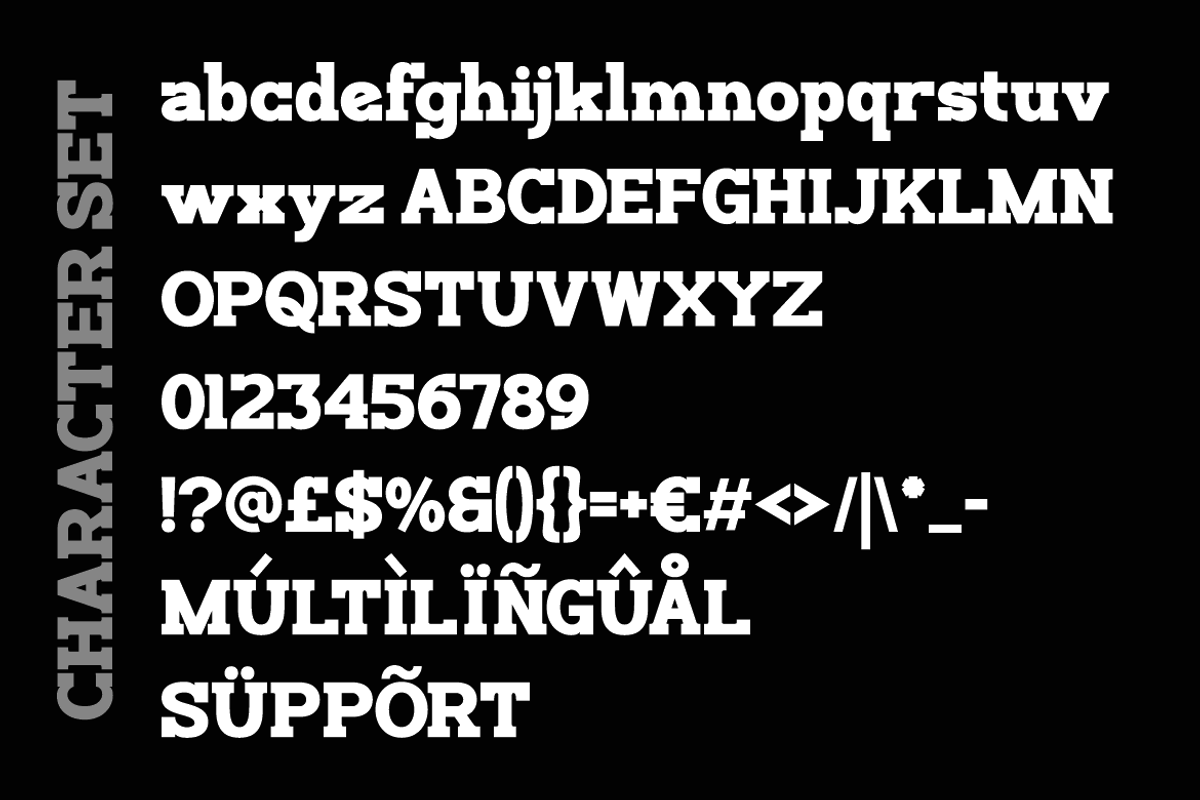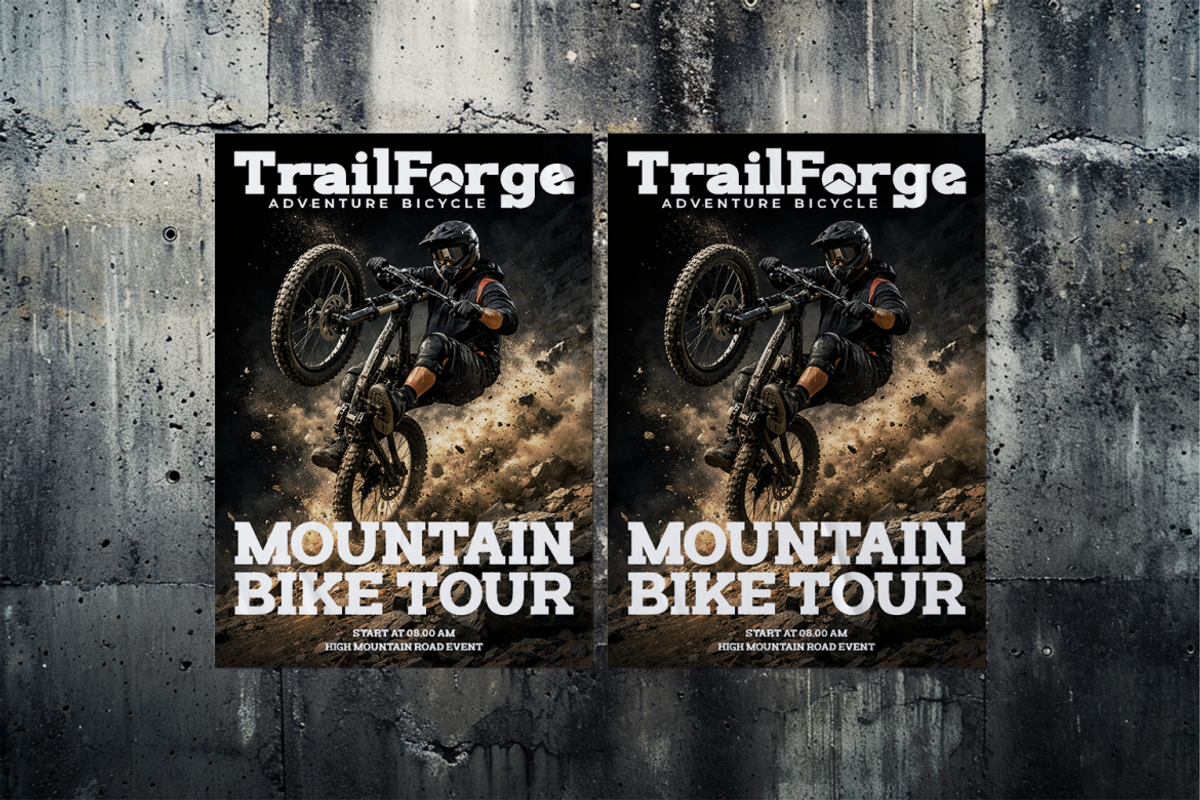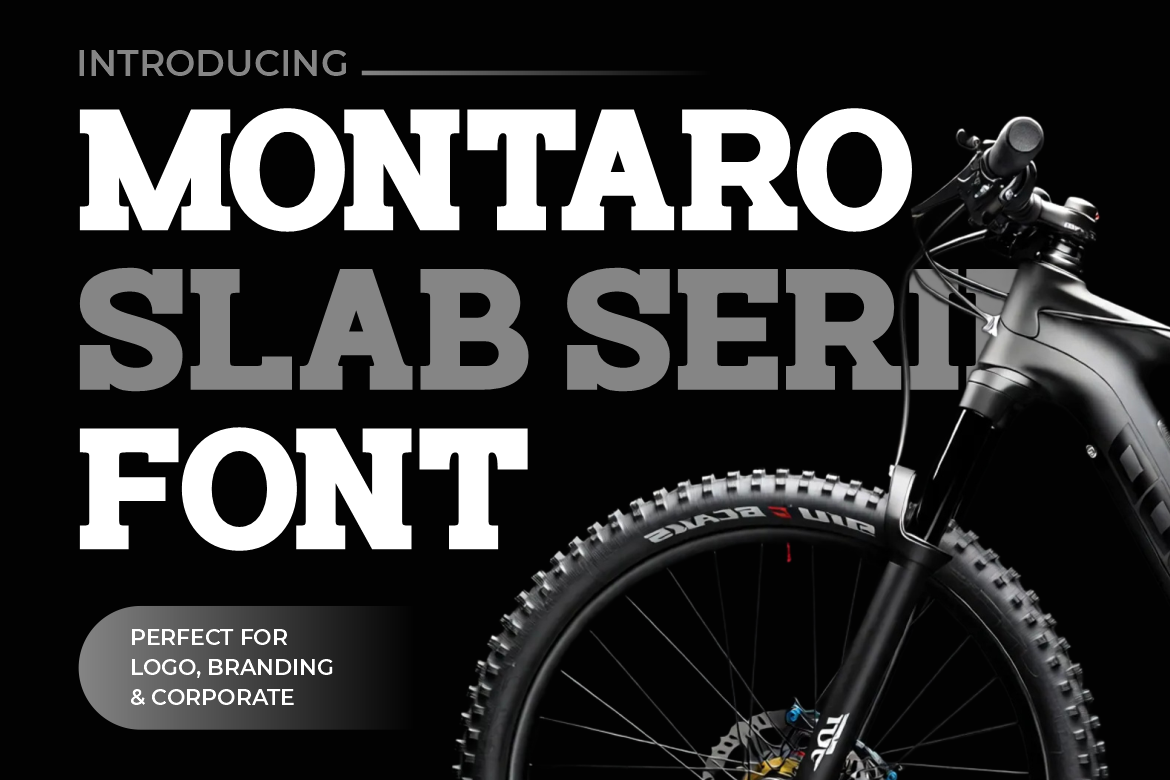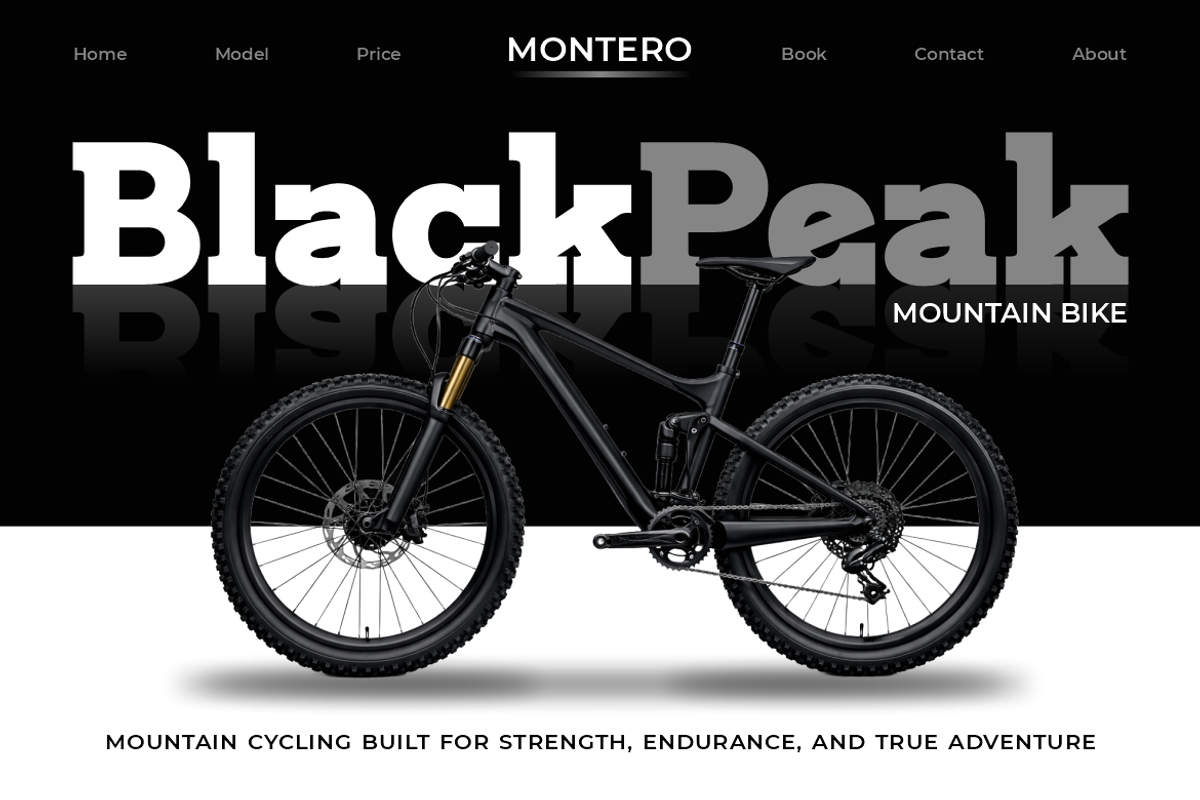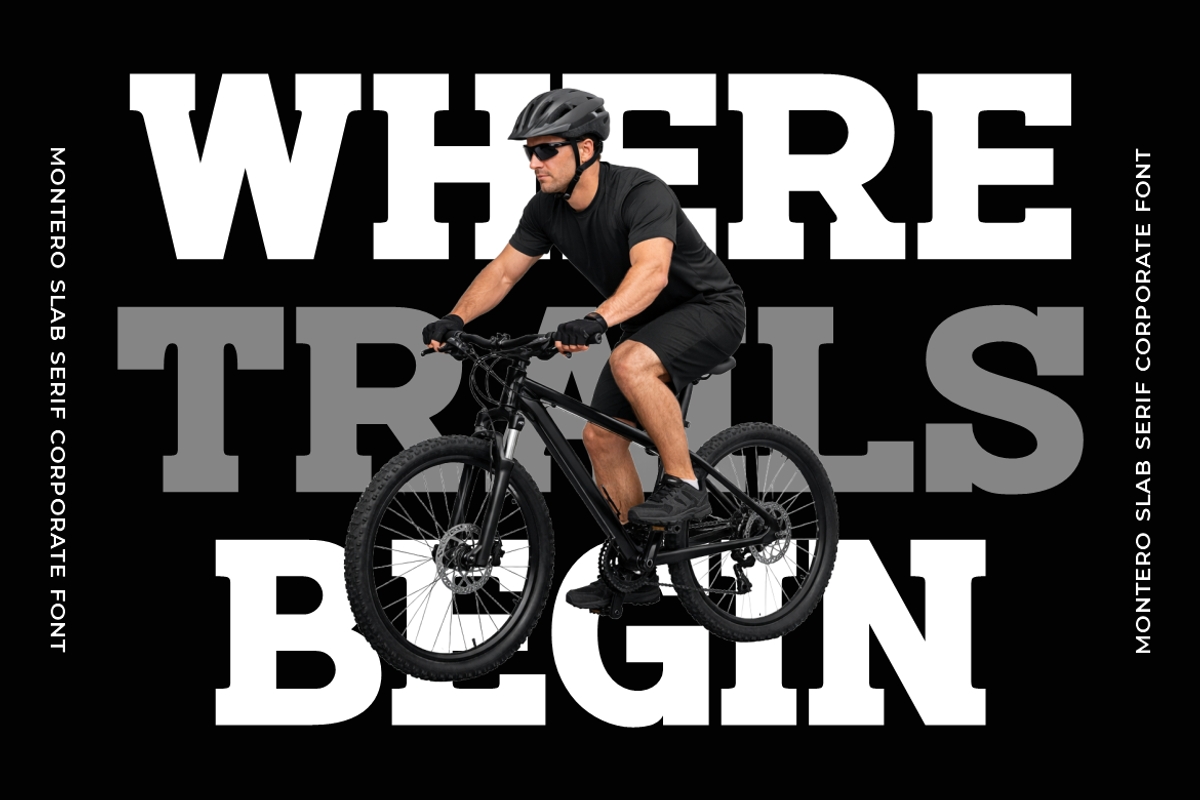
Montaro Corporate Slab Font
Montaro Corporate Slab Font delivers broad letterforms, sturdy proportions, and powerful slab details for confident branding. Heavy strokes create strong identity without making the characters feel crowded or difficult to read. Its structured shapes suit bike branding, cycling brand systems, mountain bike businesses, and road cycling promotions. The typeface also supports bicycle shop signage, bike shop graphics, cycling event materials, and sports business communication. Its firm construction gives every corporate logo and business logo a dependable presence. This balance makes the font useful for corporate branding and recognizable brand identity.
The solid character extends beyond cycling into outdoor brand projects, adventure brand campaigns, and active lifestyle businesses. It works naturally for bicycle business promotions, cycling club identities, bike tour graphics, and road race communication. Designers can also apply it to sports branding, bike logo concepts, outdoor business signage, and sports poster layouts. Large characters create clear headline design for advertising campaign materials and promotional content. The same visual strength works across product packaging, poster design, sticker design, and directional graphics. Montaro Corporate Slab Font keeps messages direct, energetic, and professional across different commercial applications.
Its clear hierarchy also supports editorial and entertainment projects that need memorable typography. Use it for magazine cover layouts, book cover titles, film title graphics, and corporate presentation headlines. The strong proportions remain effective across sports poster campaigns and large advertising campaign formats. Businesses can combine it with restrained supporting text for cleaner visual systems. This approach works for cycling event promotions, bicycle shop materials, and outdoor brand communication. The typeface also adapts well to corporate branding projects outside sports. Technology companies, automotive businesses, equipment brands, and creative studios can use its structured character for a confident identity.